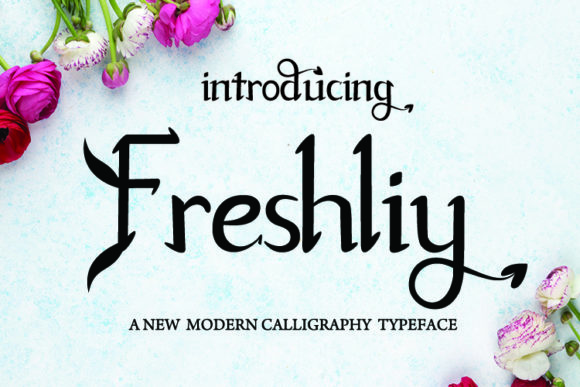
Immerse yourself in the enchanting realm of Freshliy Font, where elegance and modernity intertwine to elevate your creative endeavors to dizzying heights. A meticulously crafted script font, Freshliy emanates a timeless allure that will leave an unforgettable impression on any design canvas.
Indulge in the unparalleled artistry of Freshliy, where each letter dances across the page with the grace and fluidity of a master calligrapher's hand. Its enchanting curves and playful swashes evoke a sense of warmth and intimacy, making it the perfect choice for heartfelt messages, captivating invitations, and intimate storytelling.
Freshliy's versatility knows no bounds. Whether you're a seasoned designer seeking to add a touch of sophistication to your projects or a novice just starting your creative journey, Freshliy will effortlessly complement your artistic vision. Its PUA encoding grants you seamless access to a treasure trove of glyphs and swashes, empowering you to unleash your creativity without limits.
With Freshliy as your trusted companion, you'll discover endless possibilities to enchant your audience. From ethereal wedding invitations that evoke a fairy-tale ambiance to dynamic branding that exudes a touch of whimsy, Freshliy will elevate your designs to new realms of artistry.
Its effortless charm will captivate your audience, drawing them into a world where imagination knows no bounds. Whether you seek to craft heartfelt messages, captivating marketing campaigns, or simply add a touch of elegance to your personal projects, Freshliy will effortlessly transform your words into works of art.
So embark on this enchanting journey with Freshliy Font, and let your creativity soar to unprecedented heights. Its timeless beauty and boundless versatility will ignite your imagination and leave an everlasting impression on all who encounter it.